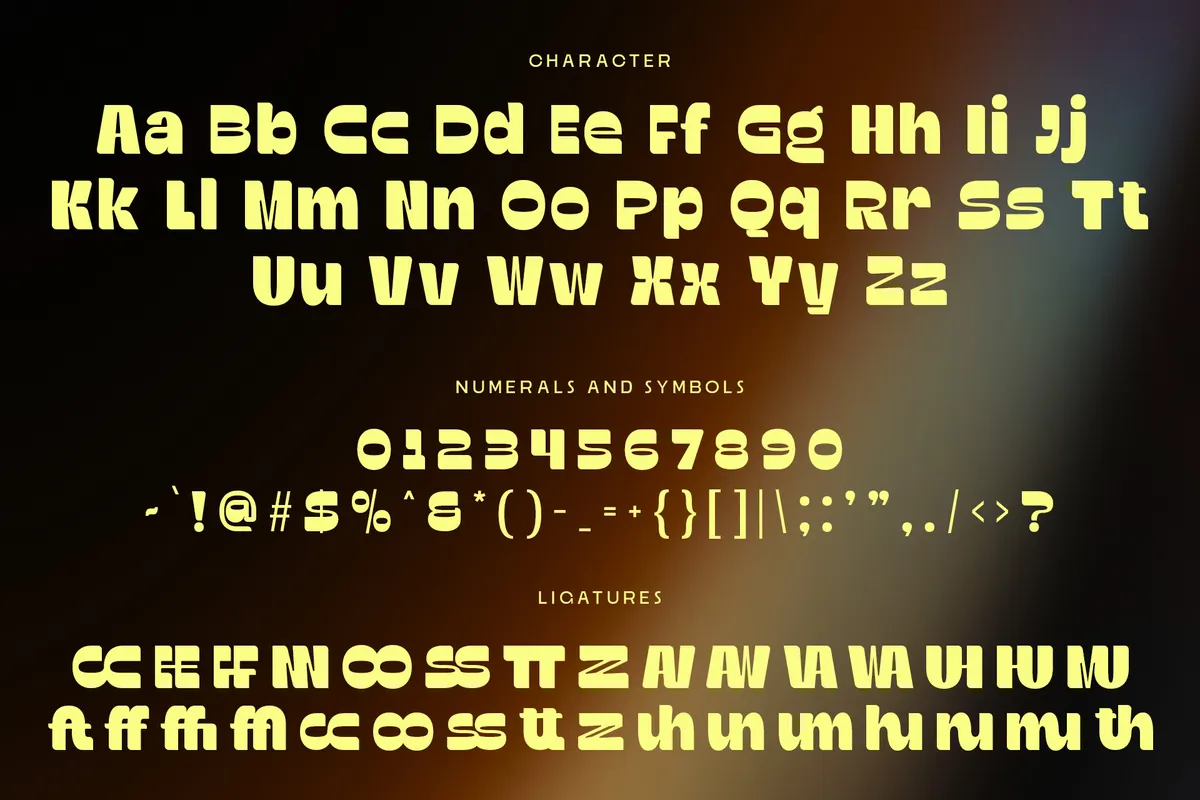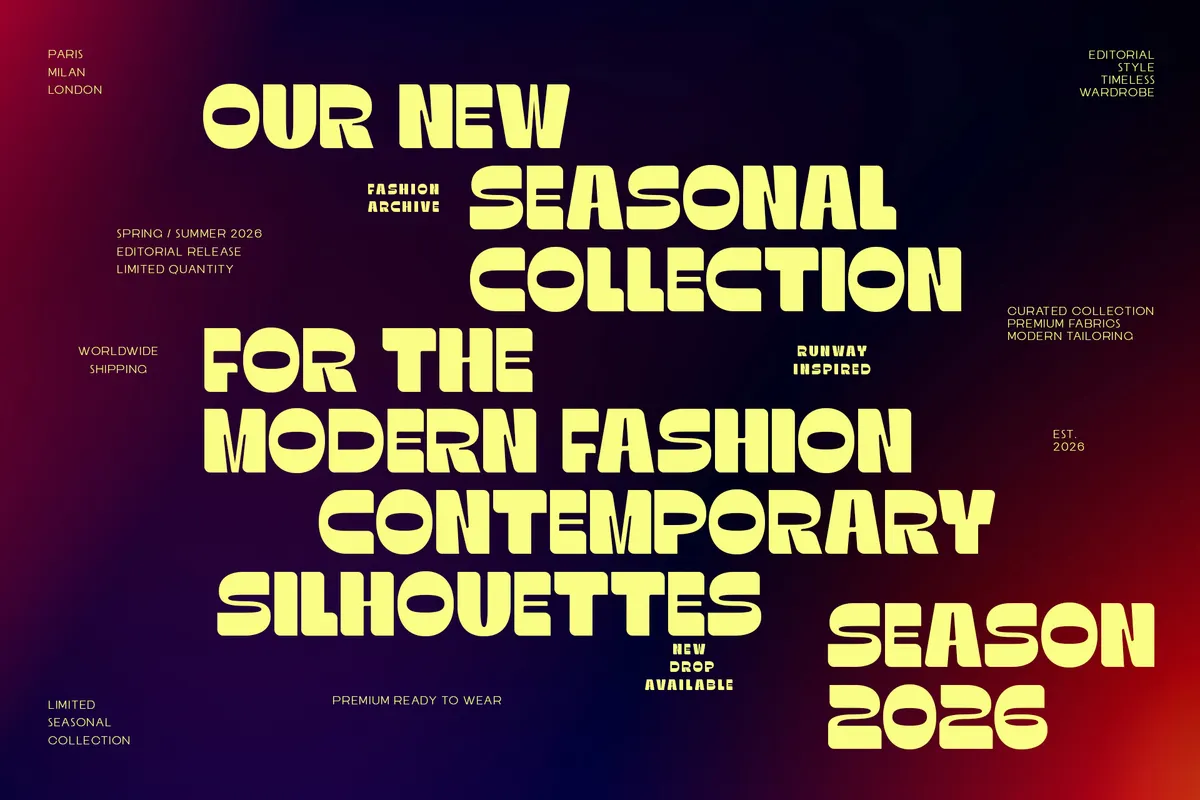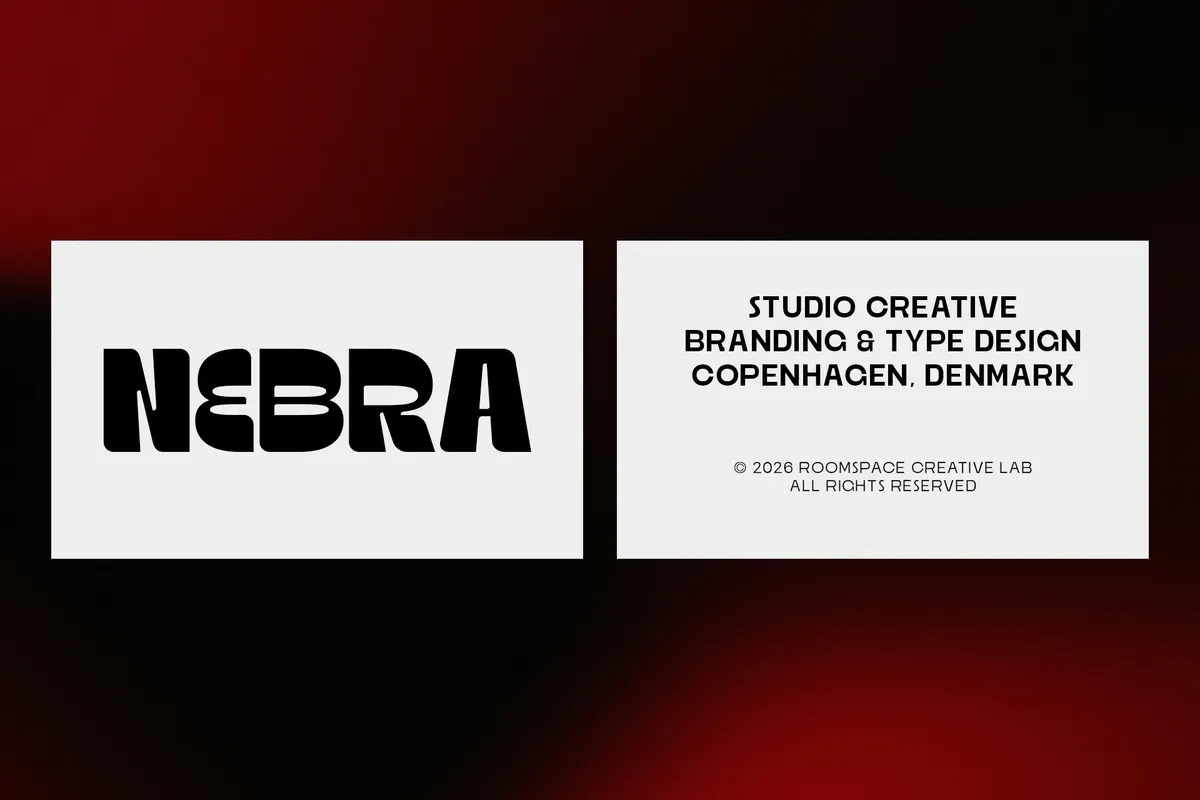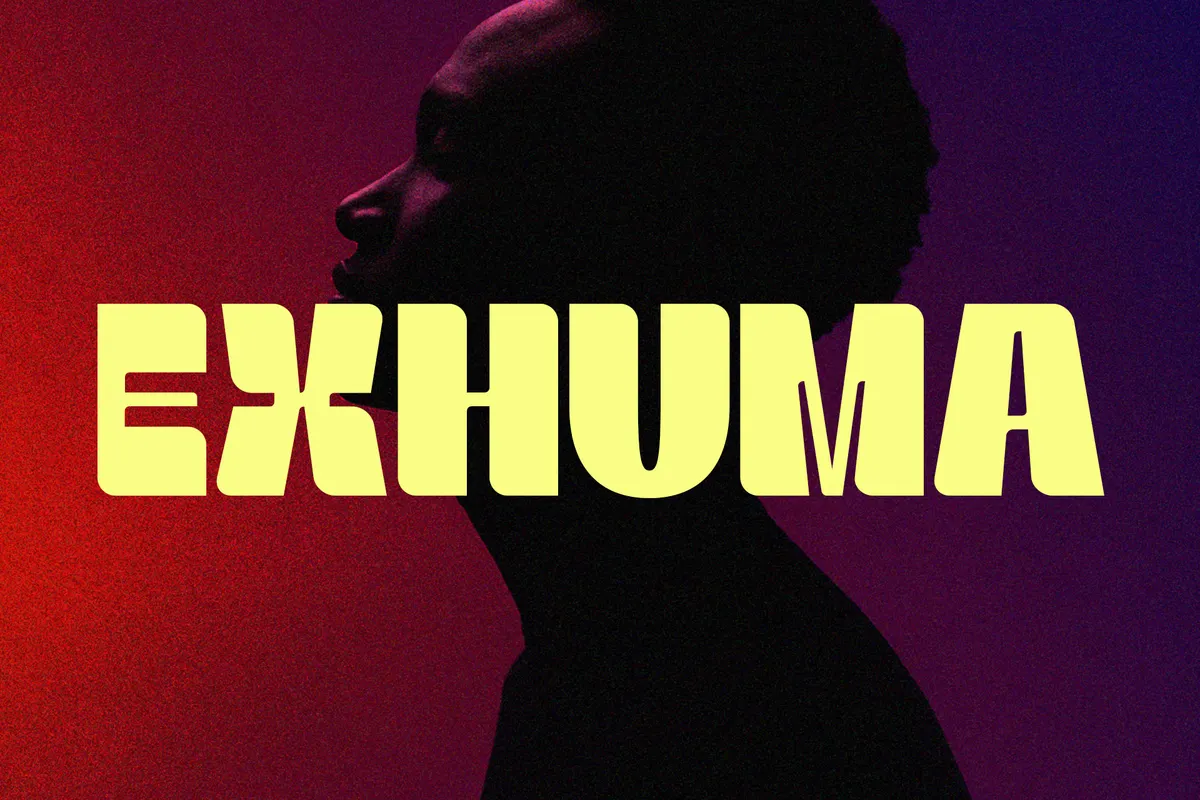
Exhuma - Heavy Groovy Display Font
Exhuma
Exhuma is a heavy groovy display font with strokes thick enough to close the counters down to slits, and every corner rounded off so the letters look poured instead of drawn. At this weight a word becomes a shape before it becomes text.
Twenty-nine discretionary ligatures fuse capital pairs — AV, AW, CC, EE, FF, HU — into single joined shapes, which is where the face earns a wordmark. Use it for record sleeves, festival posters, streetwear graphics, fashion campaign titles, energy drink cans, club flyers, and title cards.
- one style: Regular;
- uppercase & lowercase;
- numerals, punctuation & symbols;
- 29 discretionary ligatures for capital pairs;
- stylistic alternates for E, F, a and f;
- fractions, ordinals and superiors;
- 271 glyphs.